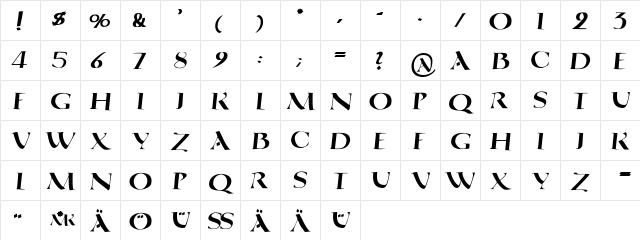
QuadrataRoma Regular
Design Context for QuadrataRoma Typeface
QuadrataRoma offers clean, dependable letterforms without strong stylistic allegiance, making it a practical choice for designers who need flexibility.
Pro Tip: Use QuadrataRoma in both headline and body roles to test its range before committing to a single application.